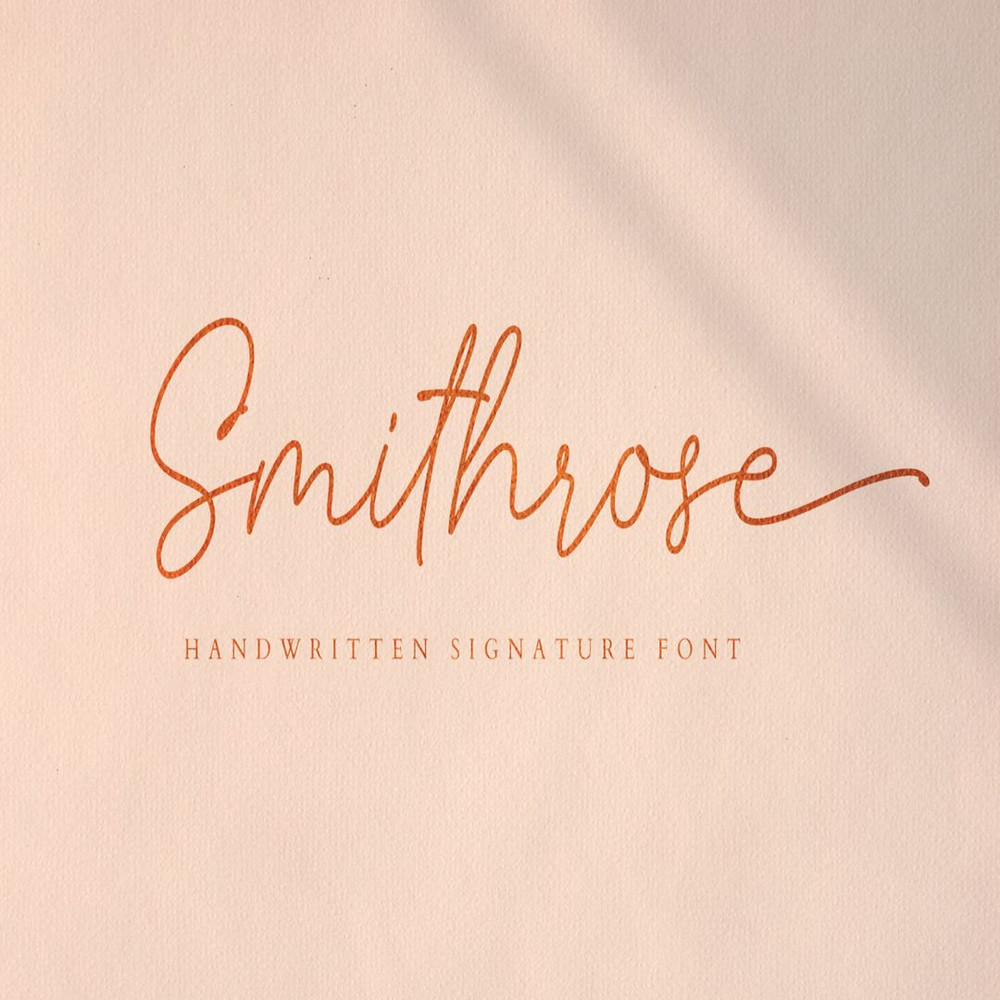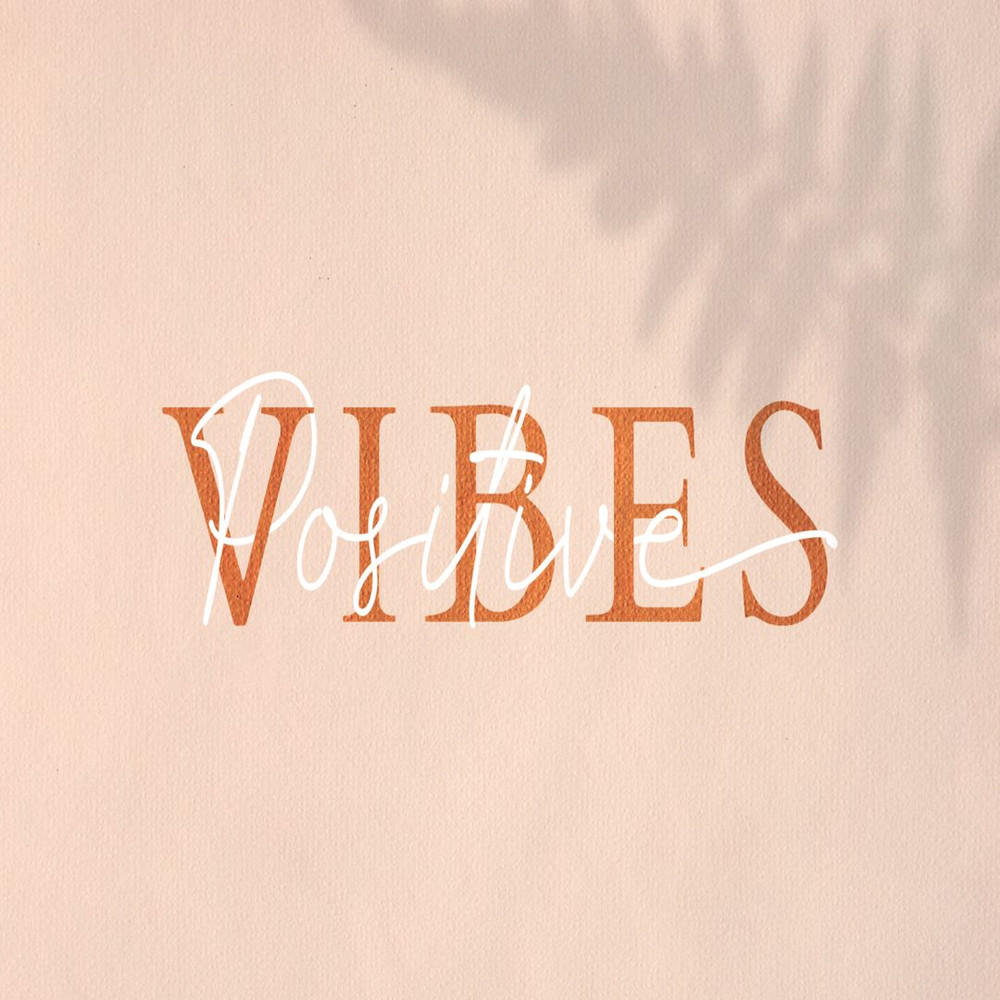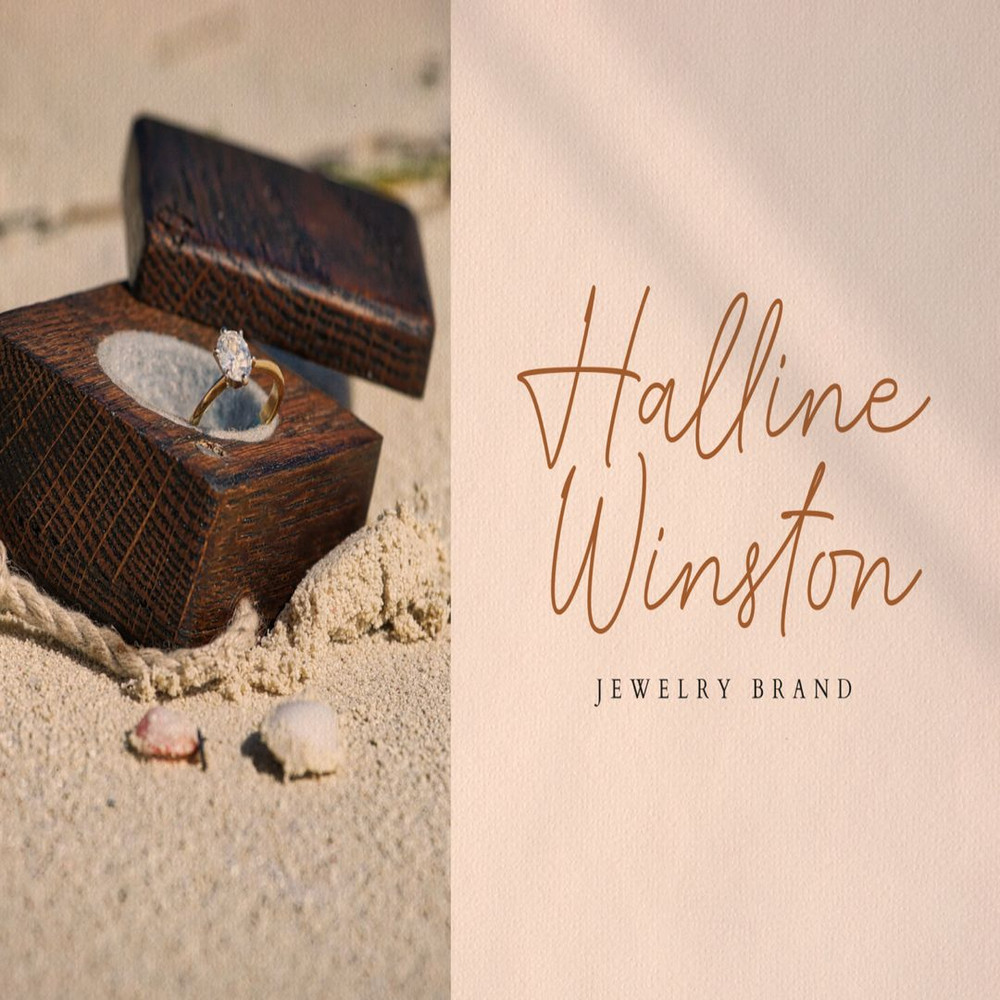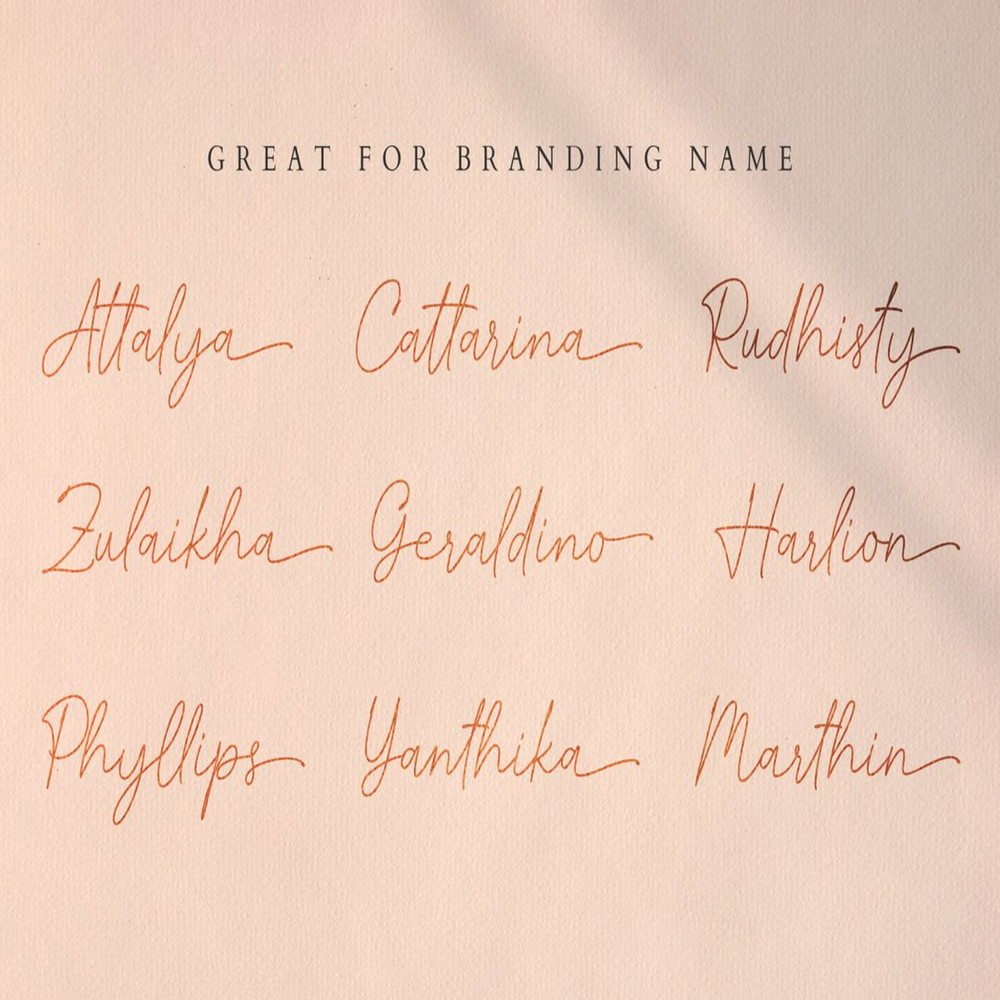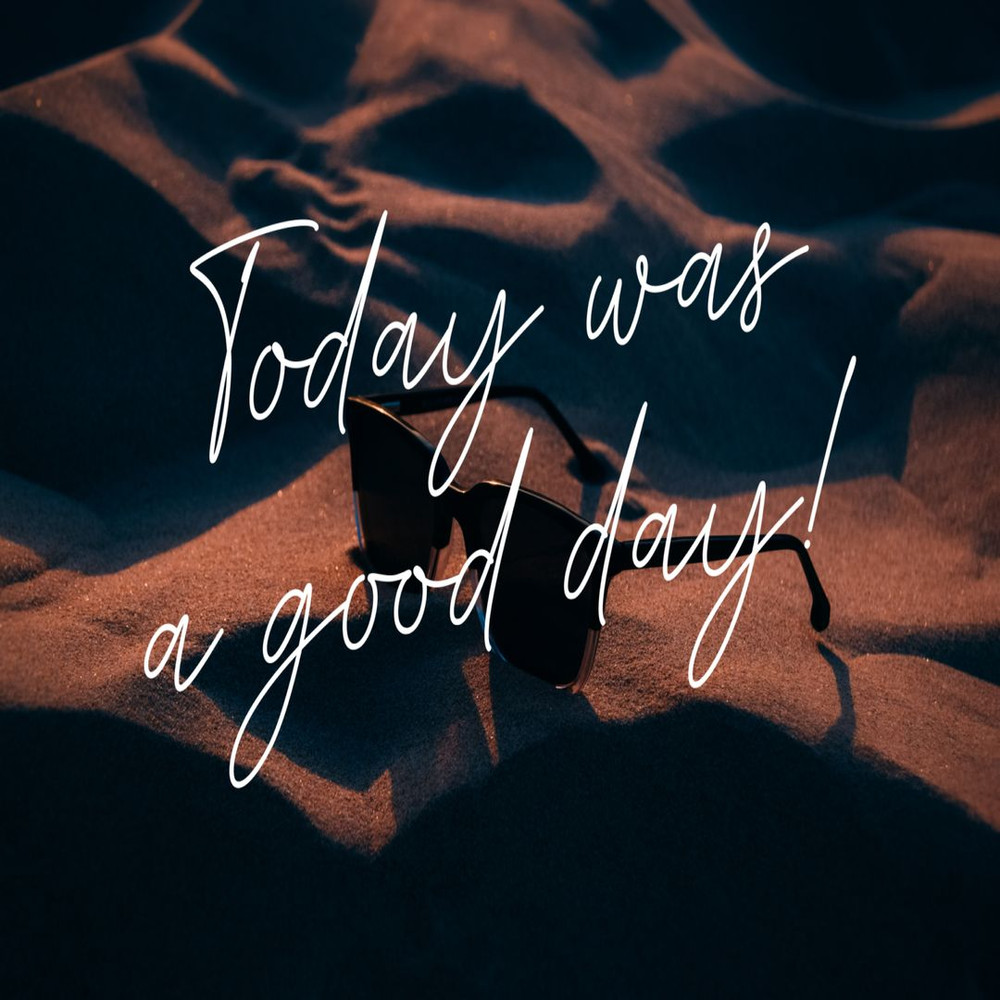
Introducing our new font called Smithrose, inspired by monoline signature letters. Smithrose is a natural & modern handwritten signature font, it comes with 85 ligatures and ending swashes.
Smithrose is perfect for many different projects such as logos & branding, invitation, stationery, wedding designs, social media posts, advertisements, product packaging, product designs, label, photography, watermark, special events or anything.
Introducing our new font called Smithrose, inspired by monoline signature letters. Smithrose is a natural & modern handwritten signature font, it comes with 85 ligatures and ending swashes.
Smithrose is perfect for many different projects such as logos & branding, invitation, stationery, wedding designs, social media posts, advertisements, product packaging, product designs, label, photography, watermark, special events or anything.
Introducing our new font called Smithrose, inspired by monoline signature letters. Smithrose is a natural & modern handwritten signature font, it comes with 85 ligatures and ending swashes.
Smithrose is perfect for many different projects such as logos & branding, invitation, stationery, wedding designs, social media posts, advertisements, product packaging, product designs, label, photography, watermark, special events or anything.
Introducing our new font called Smithrose, inspired by monoline signature letters. Smithrose is a natural & modern handwritten signature font, it comes with 85 ligatures and ending swashes.
Smithrose is perfect for many different projects such as logos & branding, invitation, stationery, wedding designs, social media posts, advertisements, product packaging, product designs, label, photography, watermark, special events or anything.